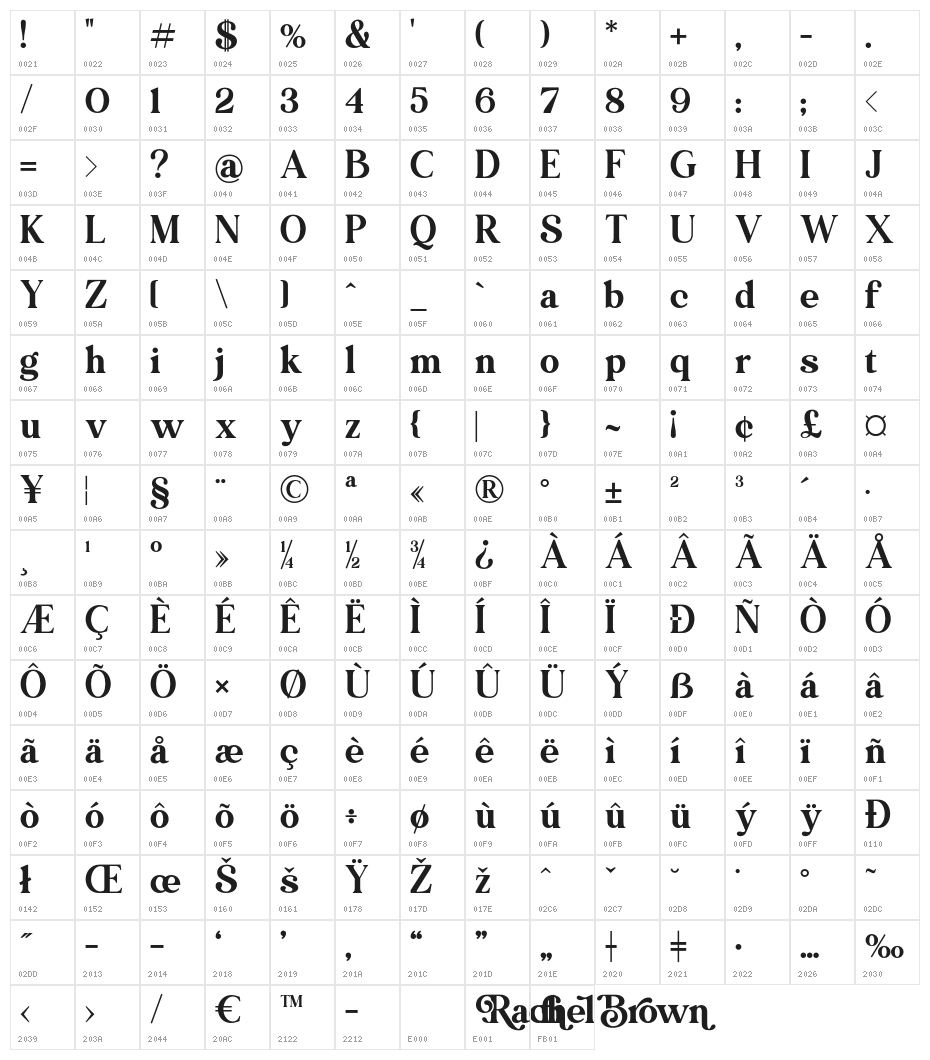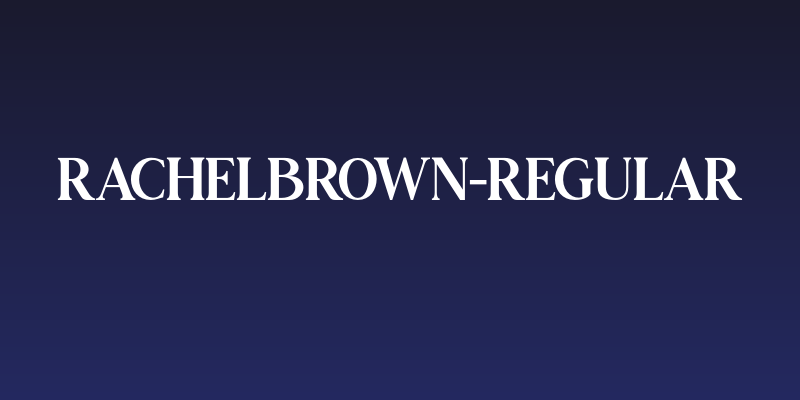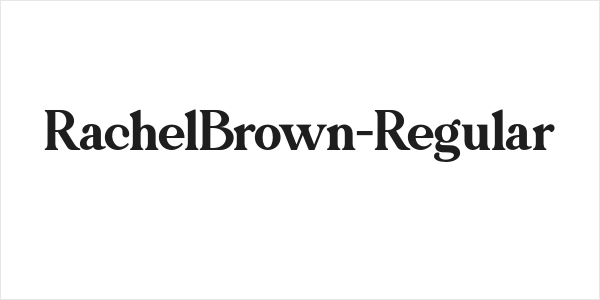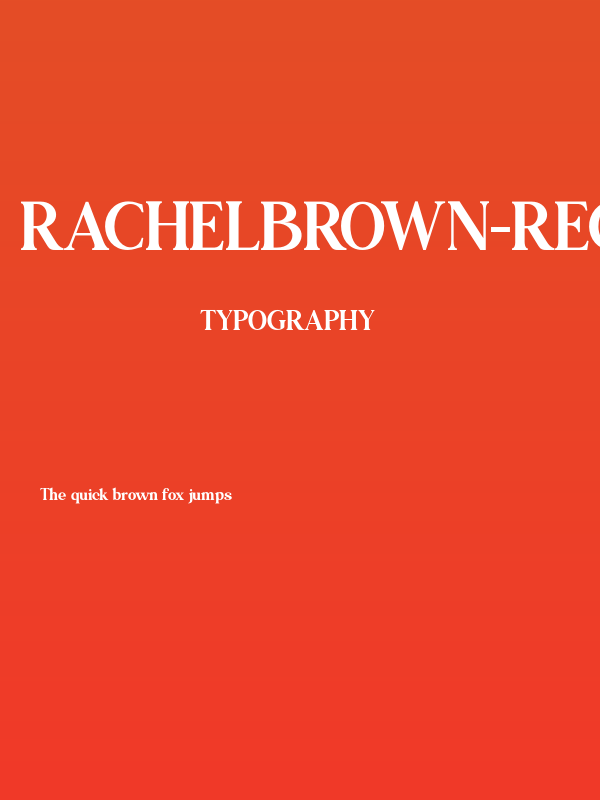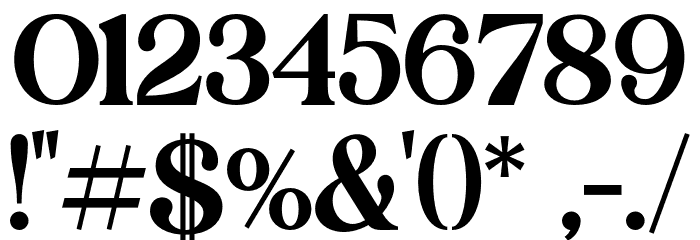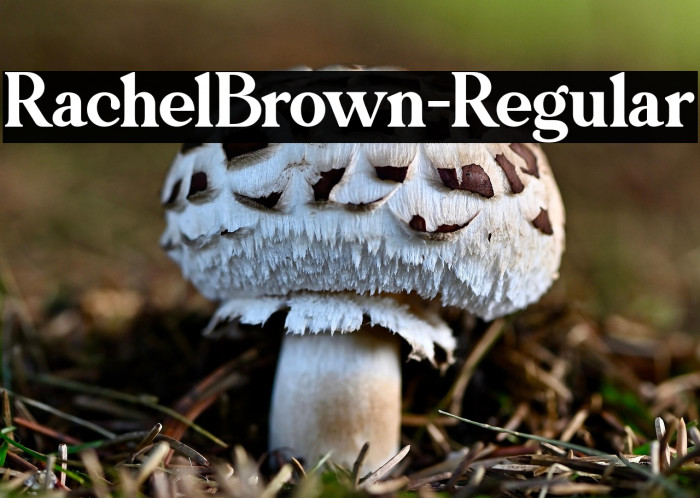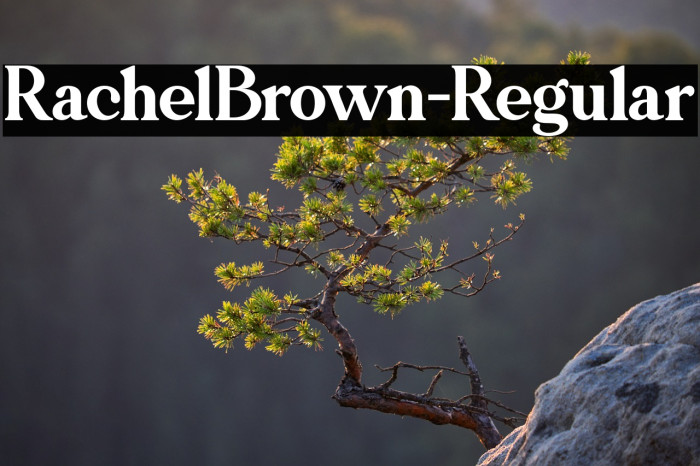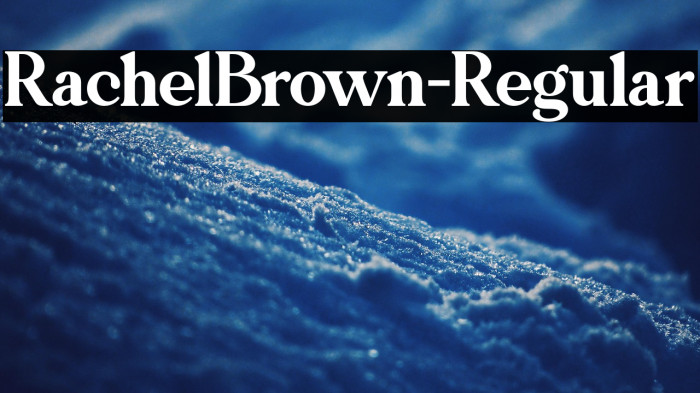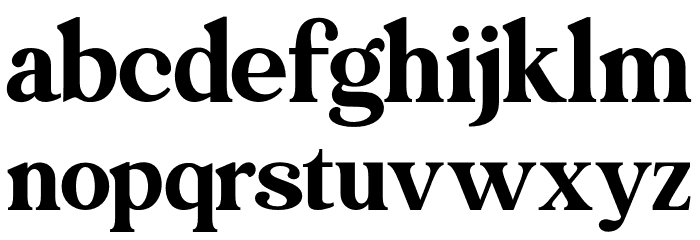
RachelBrown-Regular Font
RachelBrown-Regular Description
This font features a classic serif design with strong, bold strokes and high contrast between thick and thin lines. The uppercase letters are elegantly proportioned, with a traditional serif style that conveys a sense of authority and sophistication. The lowercase letters maintain a consistent style, offering a harmonious blend of curves and sharp edges. Numerals are robust and clear, ensuring readability. The special characters are designed to complement the overall aesthetic, making this font versatile for various applications. Its timeless appeal makes it suitable for both modern and traditional projects.